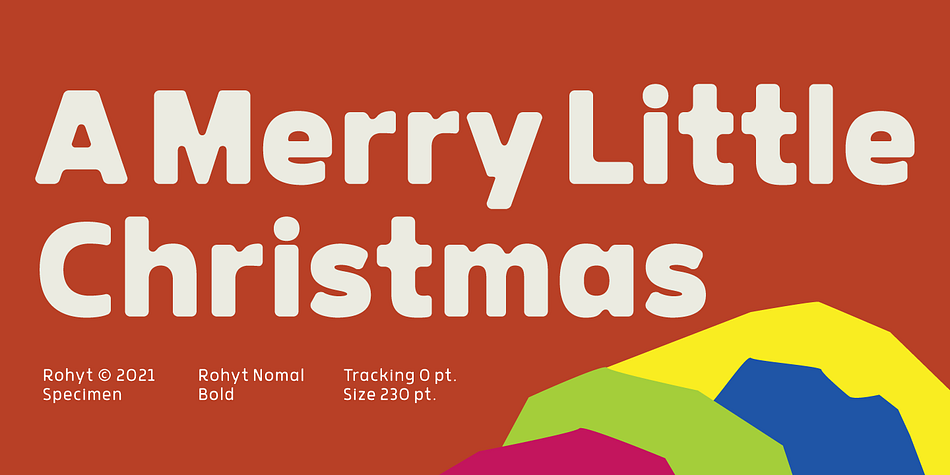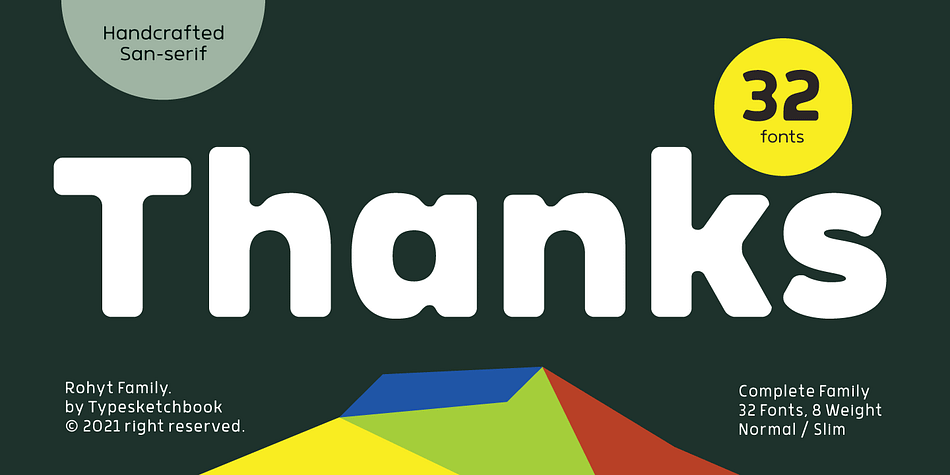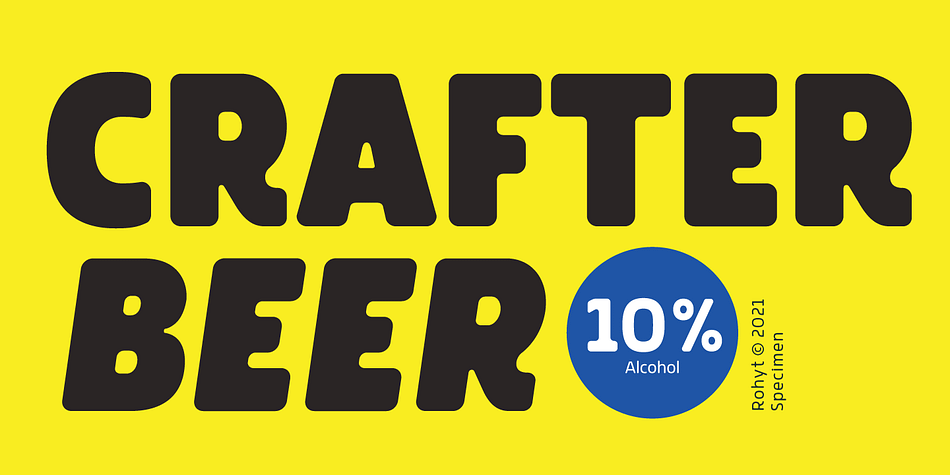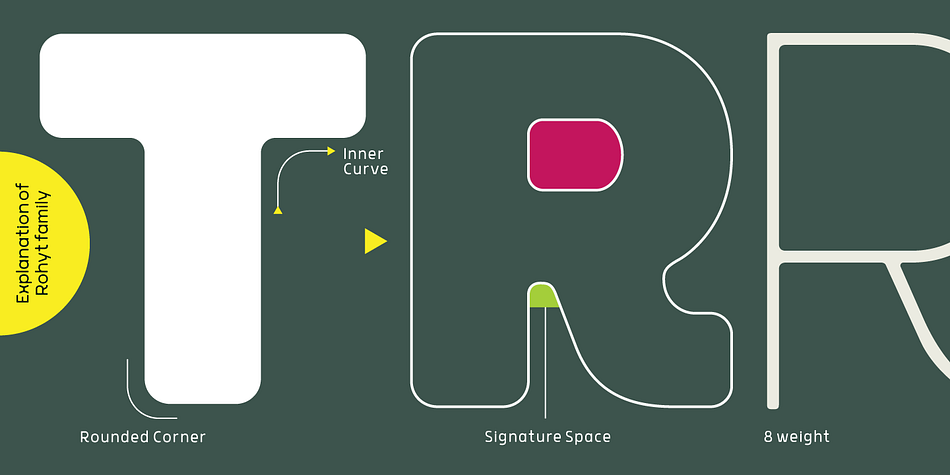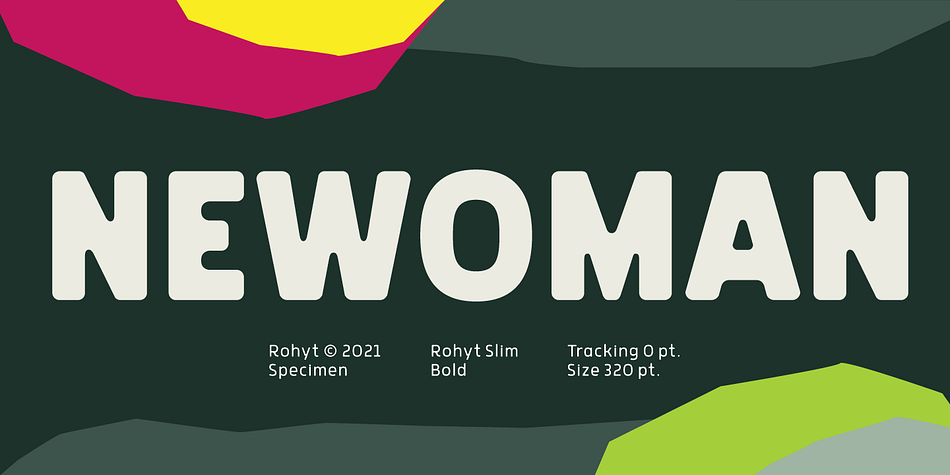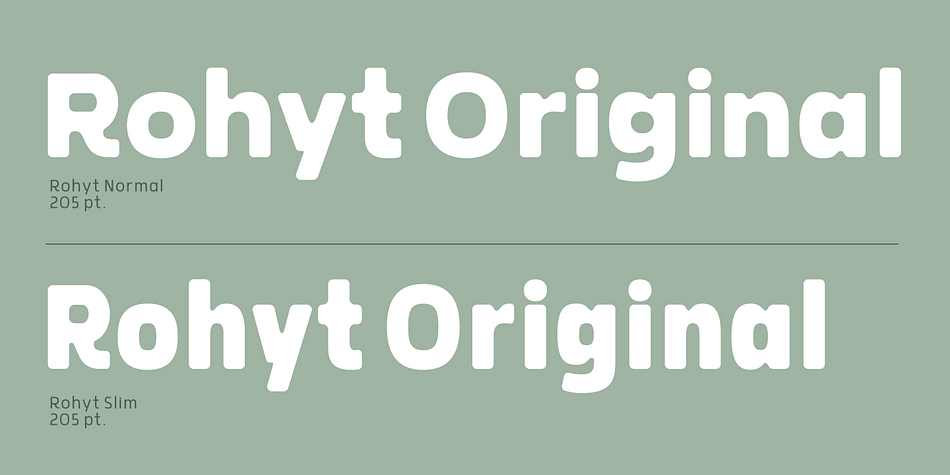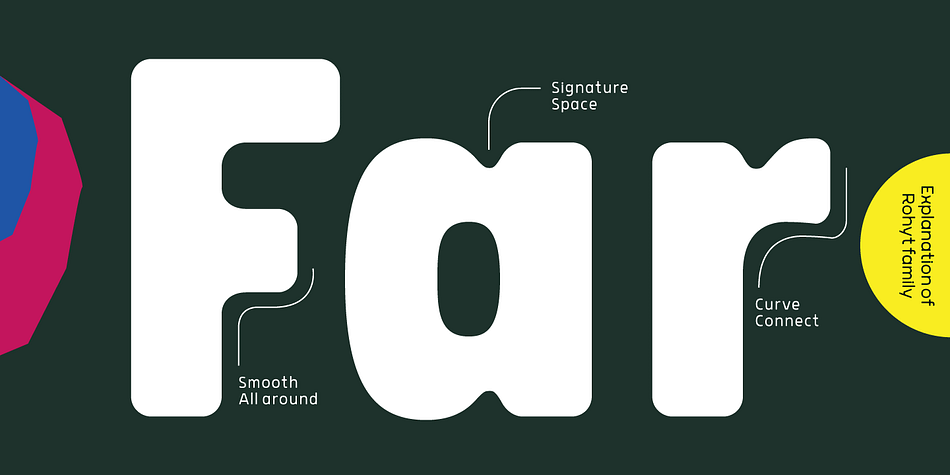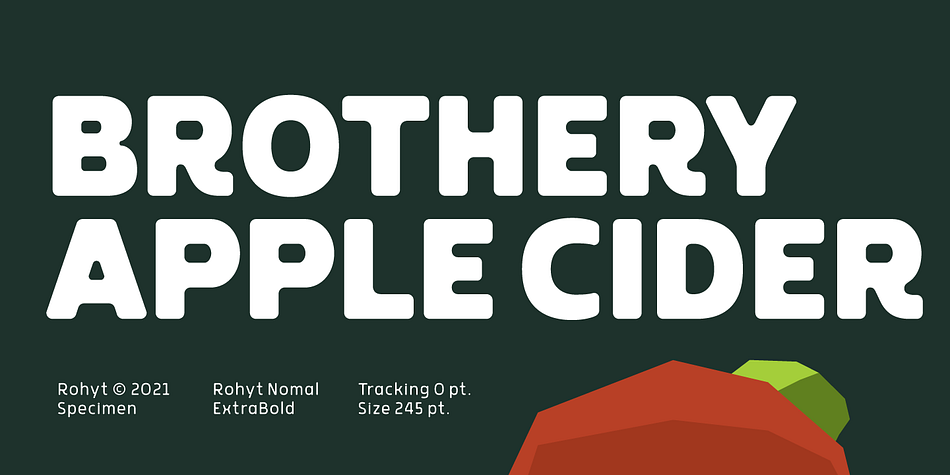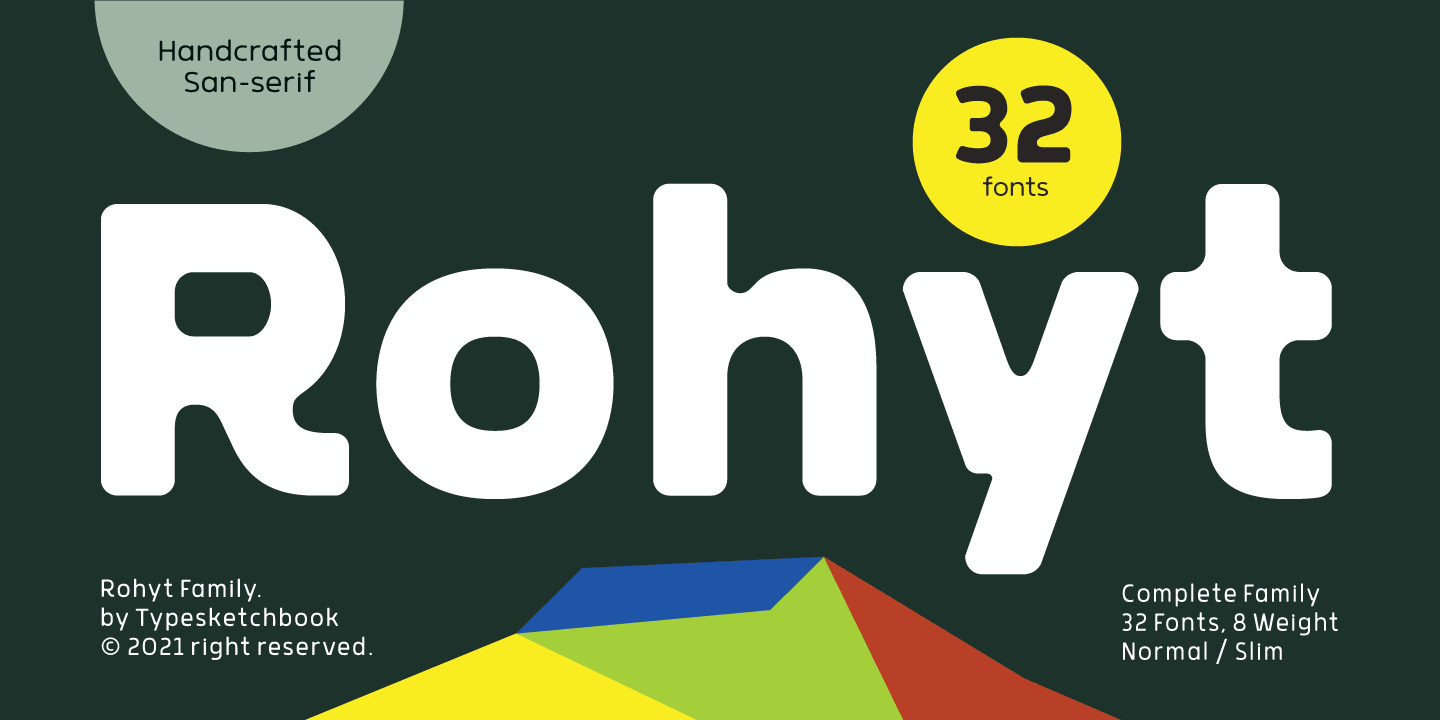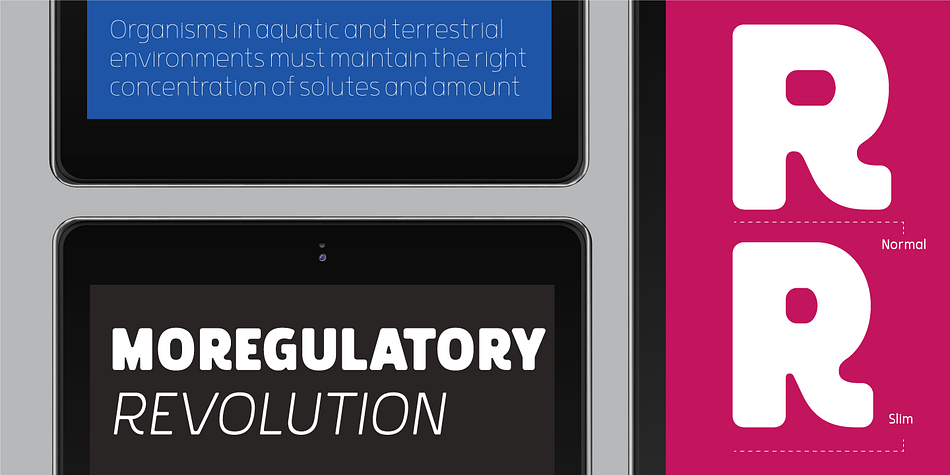
Designed by Chatnarong Jingsuphatada, Rohyt is a display sans font family. This typeface has thirty-two styles and was published by Typesketchbook.
Rohyt is a contemporary Sans-serif typeface made up of 32 fonts across 8 weights with normal and slim options. It’s a unique and modern sans typeface, which is well suited for a variety of typographic applications such as headlines and small texts. The Brilk font family supports multiple languages and is available as both webfont and desktop font.